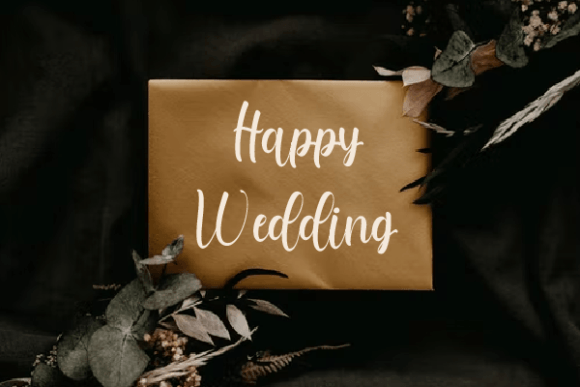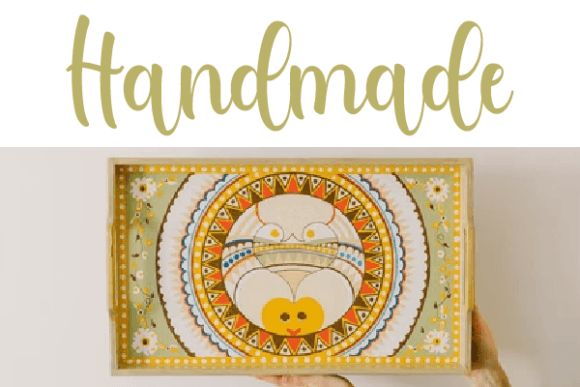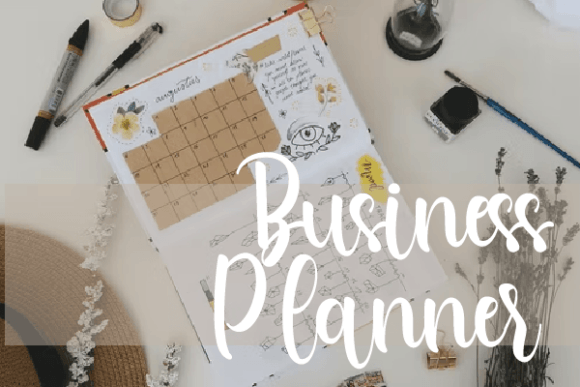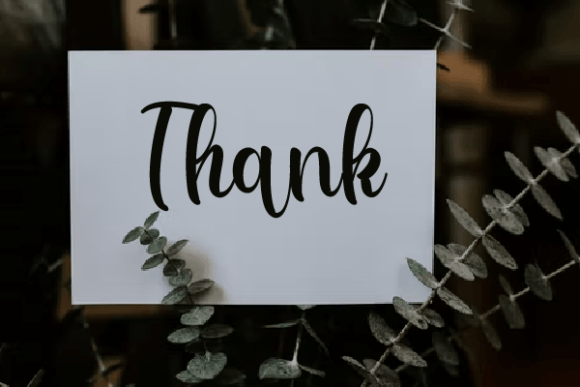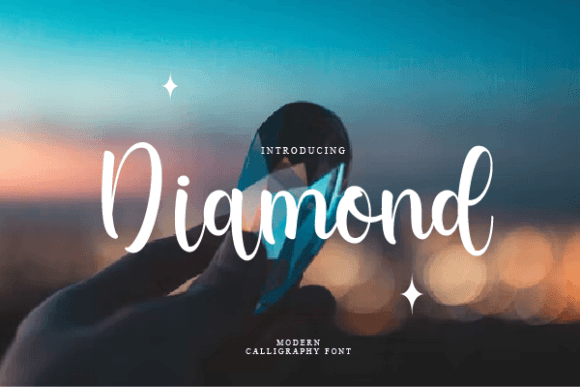
Diamond Font: Elevate Your Designs with a Touch of Elegance
In the world of typography, fonts play a crucial role in conveying the tone and personality of a design. For designers and crafters looking to add a touch of sophistication and elegance to their projects, the Diamond Font is an excellent choice. This modern handwritten font is perfect for a wide range of applications, from wall displays and wedding invitations to social media posts and product packaging.
What is Diamond Font?
Diamond Font is a beautifully crafted handwritten font that exudes a sense of luxury and refinement. Its modern design makes it an ideal choice for designers and crafters who want to add a touch of elegance to their projects. The font’s unique and flowing script is perfect for creating visually appealing designs that capture the attention of the audience.
Key Features of Diamond Font
- Modern Handwritten Design: Diamond Font boasts a modern handwritten design that is perfect for creating elegant and sophisticated designs.
- Versatile: This font is suitable for a wide range of applications, including wall displays, wedding invitations, social media posts, logos, advertisements, product packaging, and more.
- Easy to Read: Despite its elegant design, Diamond Font is easy to read, making it perfect for body text and captions.
- Scalable: The font is highly scalable, ensuring that it looks great in various sizes and resolutions.
Use Cases for Diamond Font
Diamond Font is a versatile font that can be used in a variety of design projects. Here are some use cases where this font truly shines:
- Wedding Invitations: Add a touch of elegance to your wedding invitations with Diamond Font. Its beautiful script and modern design make it perfect for formal wedding invitations.
- Wall Displays: Create stunning wall displays with Diamond Font. Its bold and elegant design makes it perfect for showcasing quotes, lyrics, or poems.
- Social Media Posts: Elevate your social media posts with Diamond Font. Its modern design and easy-to-read script make it perfect for creating engaging and shareable content.
- Logos and Branding: Use Diamond Font to create elegant and sophisticated logos and branding materials. Its unique design ensures that your brand stands out from the crowd.
- Product Packaging: Add a touch of luxury to your product packaging with Diamond Font. Its modern design and elegant script make it perfect for product labels, tags, and packaging materials.
Tips for Using Diamond Font
To get the most out of Diamond Font, here are some tips to keep in mind:
- Pair with Simple Backgrounds: Diamond Font looks best when paired with simple backgrounds. Avoid using busy patterns or textures that may distract from the font’s elegance.
- Experiment with Colors: Don’t be afraid to experiment with different colors when using Diamond Font. Its modern design looks great in a variety of colors, from bold and bright to soft and pastel.
- Use for Headings and Titles: Diamond Font is perfect for headings and titles. Use it to create visually appealing headings that capture the attention of your audience.
Diamond Font is a beautiful and elegant handwritten font that is perfect for designers and crafters looking to add a touch of sophistication to their projects. Its modern design, versatility, and easy-to-read script make it an excellent choice for a wide range of applications. Whether you’re creating wedding invitations, wall displays, social media posts, or product packaging, Diamond Font is sure to elevate your designs and make them stand out from the crowd.